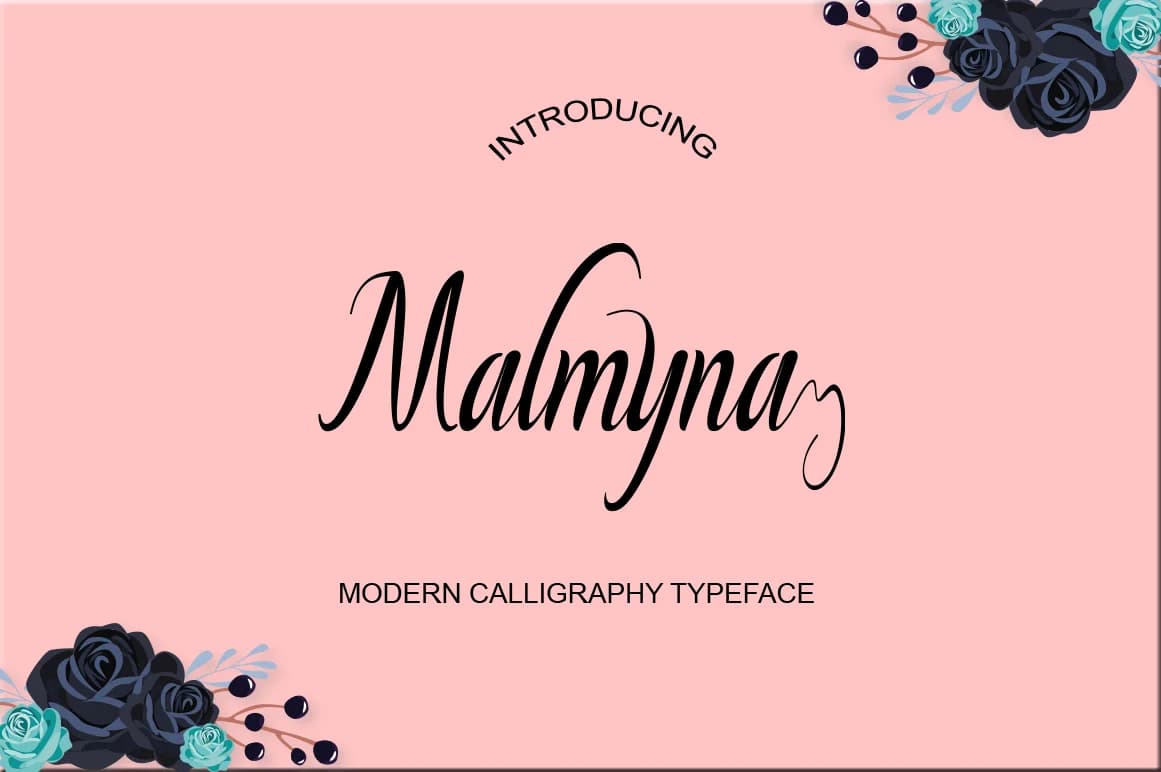
Malmyna Script by Imun Studio is a flowing, contemporary script that bridges elegant sophistication with everyday usability. The font's smooth letterforms and refined character spacing make it particularly well-suited to luxury packaging design for boutique skincare and beauty brands, where distinctive, polished typography commands attention. Whether you're designing wedding invitation suites with romantic flair or crafting personalized greeting card collections, this script delivers refined elegance without sacrificing practicality. The design also excels in creating calligraphy-inspired monogram embellishments, ornamental headers for high-end event stationery, and craft shop signage that captures a hand-rendered aesthetic while maintaining digital clarity.
What makes Malmyna genuinely valuable across such diverse applications is its careful balance between decorative presence and functional legibility. It maintains strong readability even at smaller scales, a crucial feature for product label design and personalized gift tag applications. The script performs equally well as a statement display font for lifestyle brand social media graphics or as a sophisticated standalone element in mixed-type layouts. Rather than confining itself to one specific aesthetic direction, Malmyna transitions seamlessly from formal, traditionally-styled compositions to contemporary, minimalist design approaches.
Malmyna Script Font is a script font that shines as a display or heading face. Pair it with a clean sans-serif or serif font for body text β the contrast creates a clear hierarchy while the two styles stay balanced and easy to read.
Malmyna Script Font
by Imun Studio